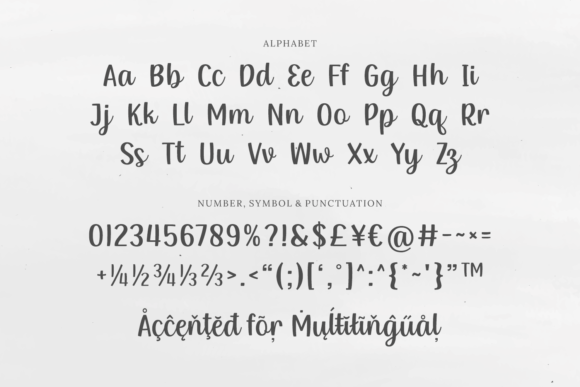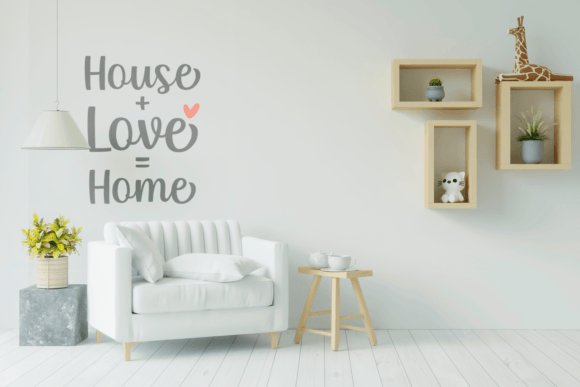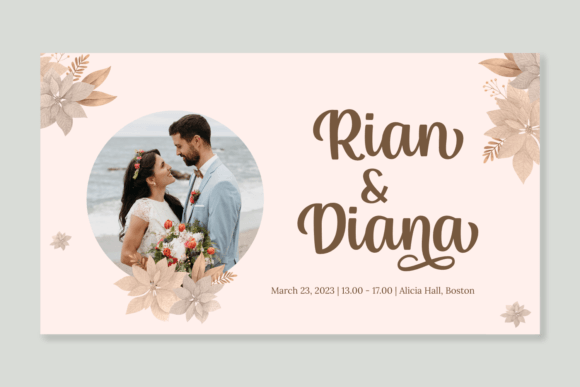
Introduction to Rinda Font
Rinda is an elegant and distinct-looking script font.
It looks stunning on wedding invitations, thank you cards, quotes, greeting cards, logos, business cards, and every other design which needs a customized touch Add this lovely font to your creations and take your designs to the next level.